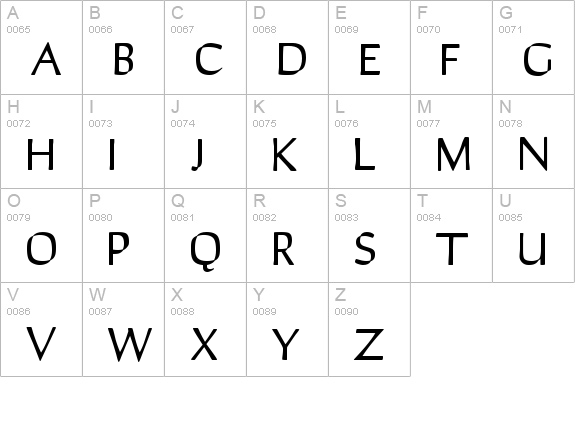
Lapis Lazuli Font Details
Lapis Lazuli font is a stunning and elegant typeface that exudes sophistication and charm. With its unique and intricate design, Lapis Lazuli is perfect for adding a touch of luxury to any project. The font features smooth lines and graceful curves that give it a timeless and refined look. What sets Lapis Lazuli font apart is not just its beauty, but also the fact that it is completely free to download. That's right, you can elevate your designs with this exquisite font without spending a dime. Simply head over to FontsMarket.com to freely download Lapis Lazuli and start creating stunning visuals that will captivate and inspire your audience.